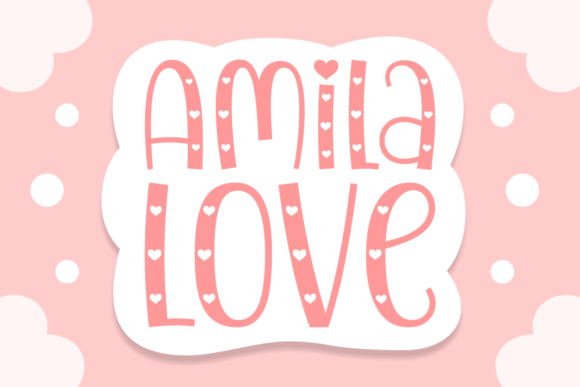
The Amila Love Font: A Sweet Addition to Your Design Arsenal
I’ll never forget the time I was working on a Valentine’s Day project for a client, and I just couldn’t find the perfect font to match the sweet and playful vibe they were looking for. I scoured the internet, tried out dozens of fonts, but nothing seemed quite right. That was until I stumbled upon the Amila Love font. It was love at first sight! ✨
So, what makes the Amila Love font so special? Let’s dive into the good stuff and, of course, a few quirks I’ve noticed.
- ✨ Adorable display font with cute heart elements and smooth lines
- ✅ Perfect for Valentine’s Day, Mother’s Day, or any other occasion that calls for a touch of love and sweetness
- 🌈 Versatile and can be used for a variety of design projects, from digital to print
- 🤔 Limited use outside of display or title contexts, as it may be too ornate for body text
- ⚠️ May not be suitable for very small font sizes, as details can get lost
The Story Behind Amila Love Font
The Amila Love font was created with love (pun intended!) by a designer who wanted to capture the essence of affection and warmth in a typeface. Inspired by handwritten notes and sweet Valentine’s Day cards, this font brings a personal touch to any project. Though the exact story behind its creation might be fictional, its impact on designers and crafters is very real.
Q: Does Amila Love font support OpenType features?
A: Yes, Amila Love font comes with OpenType features, including cute heart elements and stylistic alternates, which you can access in compatible software.